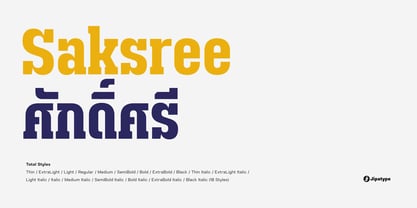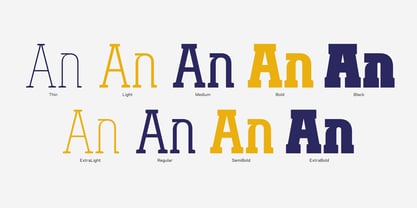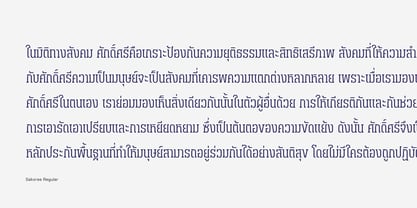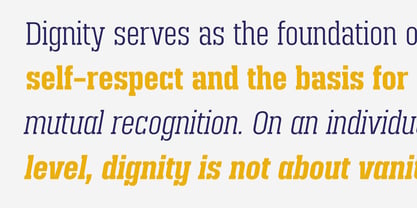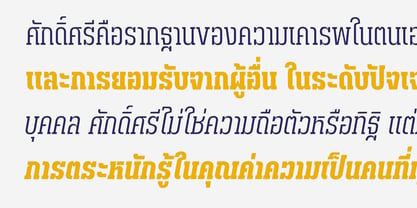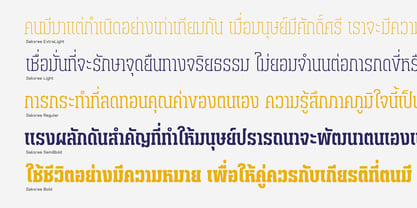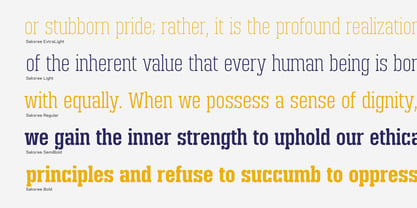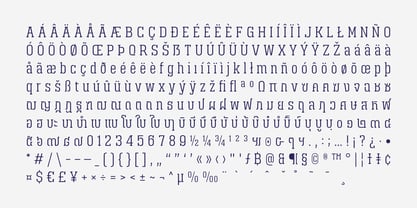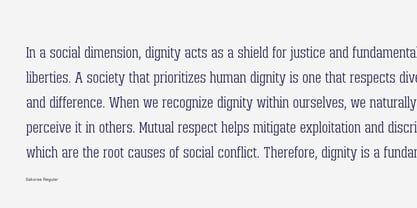
Saksree
by Jipatype
The Saksree Font Family was designed by Anupap Jaichumnan and published by Jipatype. Saksree contains 18 styles and family package options. More about this family
Saksree is a contemporary Slab Serif typeface that embodies a calm yet commanding presence. Featuring a uniform stroke weight, it delivers a stable and highly organized aesthetic. The hallmark of Saksree lies in its robust block serifs, providing a solid foundation that instills a sense of seriousness and reliability in every message. Its slightly condensed proportions lend an air of elegance and dignity while effectively optimizing space for headline compositions. Boasting a comprehensive family of 18 styles—ranging from delicate Thin to authoritative Black with matching italics—Saksree serves as a highly versatile tool for designers across all creative dimensions.
Designers: Anupap Jaichumnan
Foundry: Jipatype
Saksree